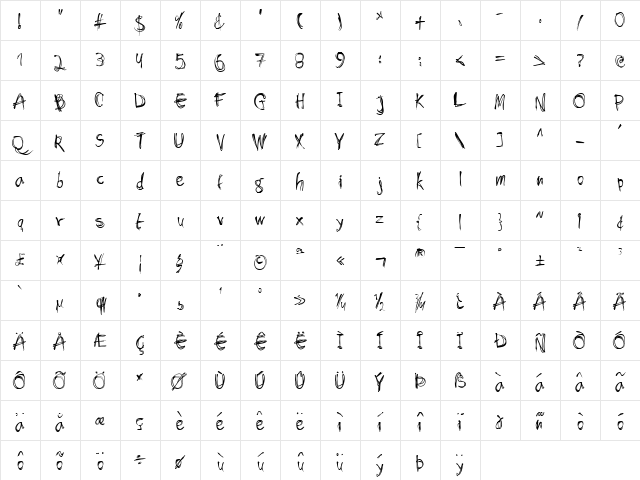
Shockheaded Regular
Foundry: Meir Sadan
Designer: Meir Sadan
Design Context for Shockheaded
Shockheaded is a composed and adaptable typeface that performs quietly and consistently across a wide range of design contexts.